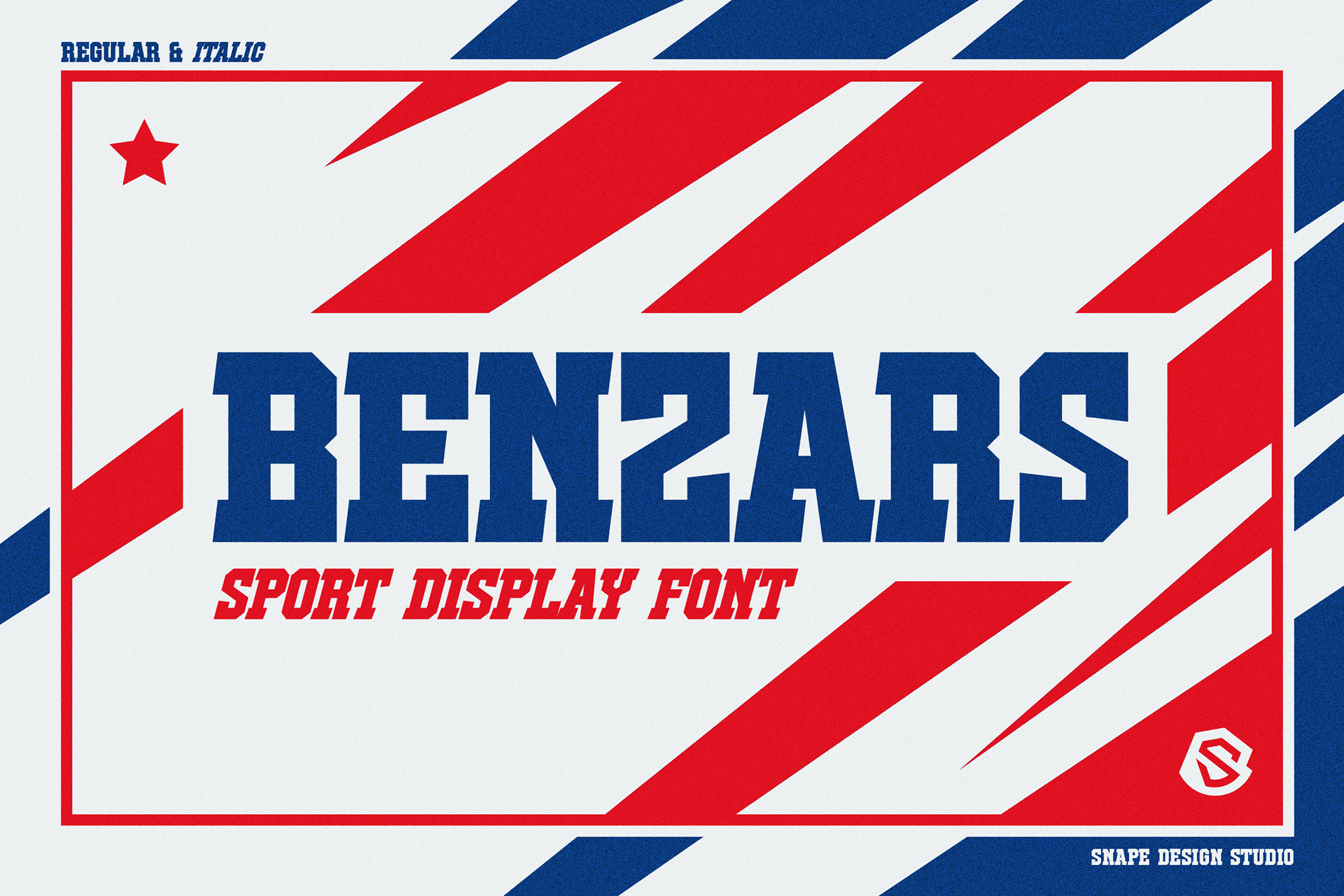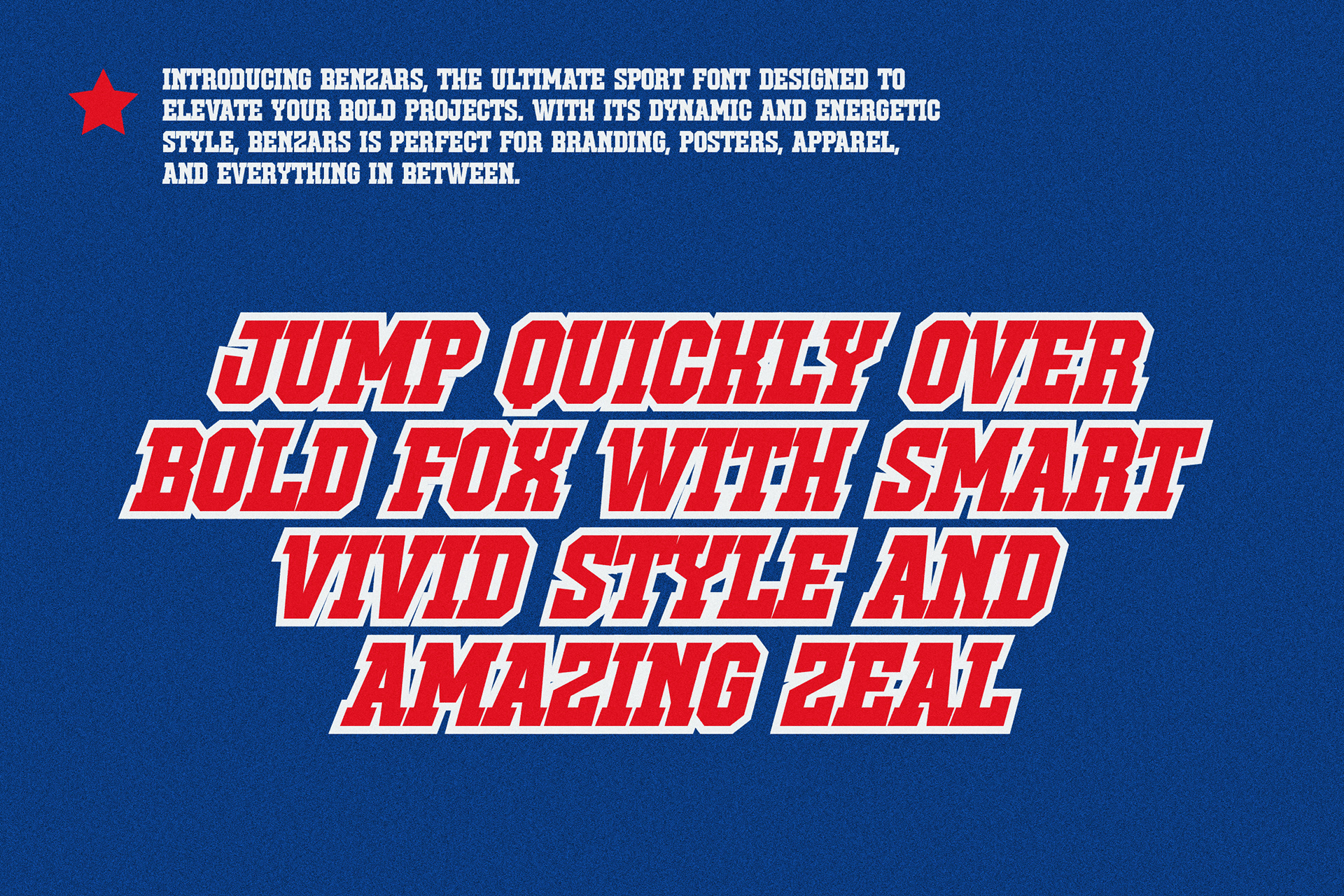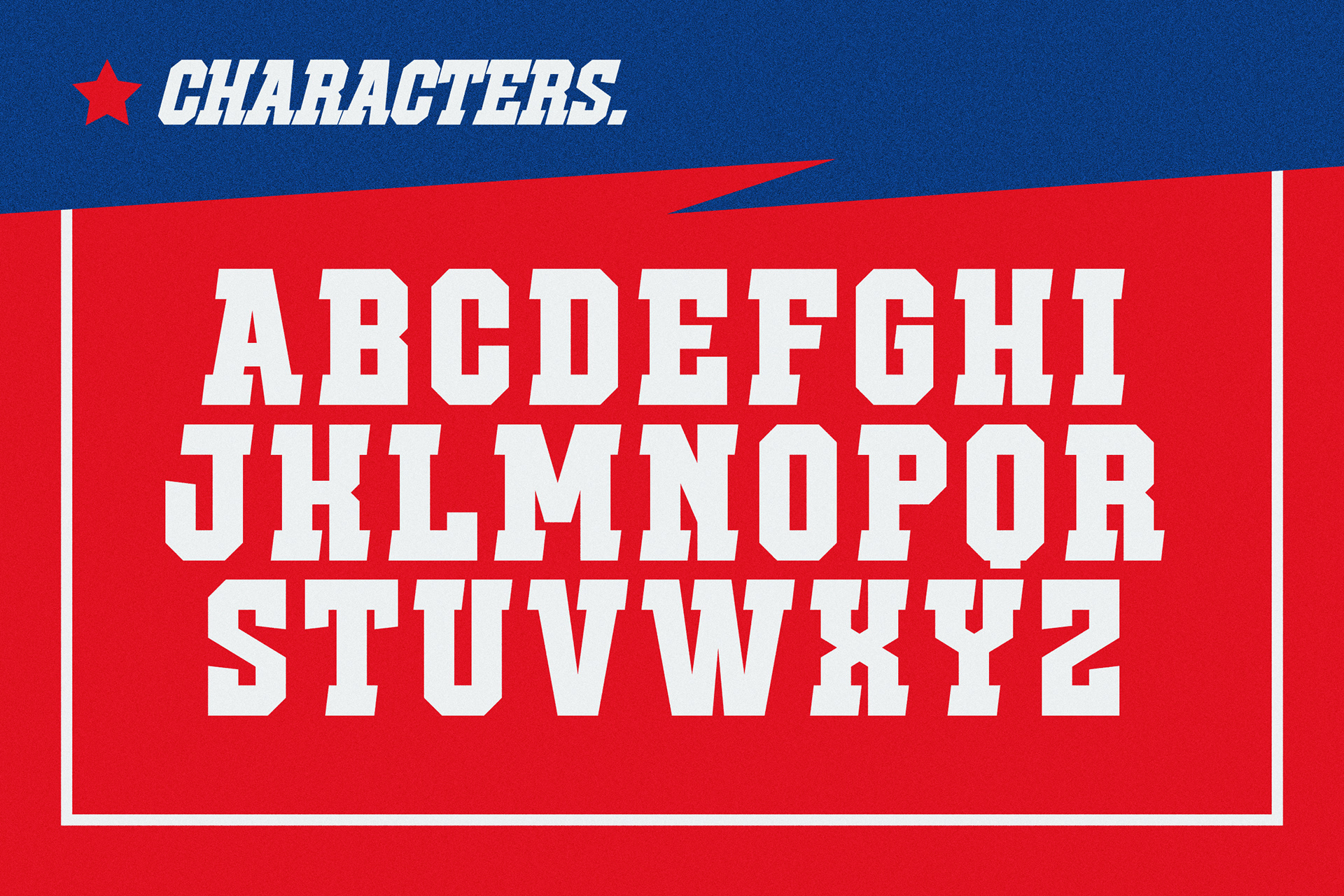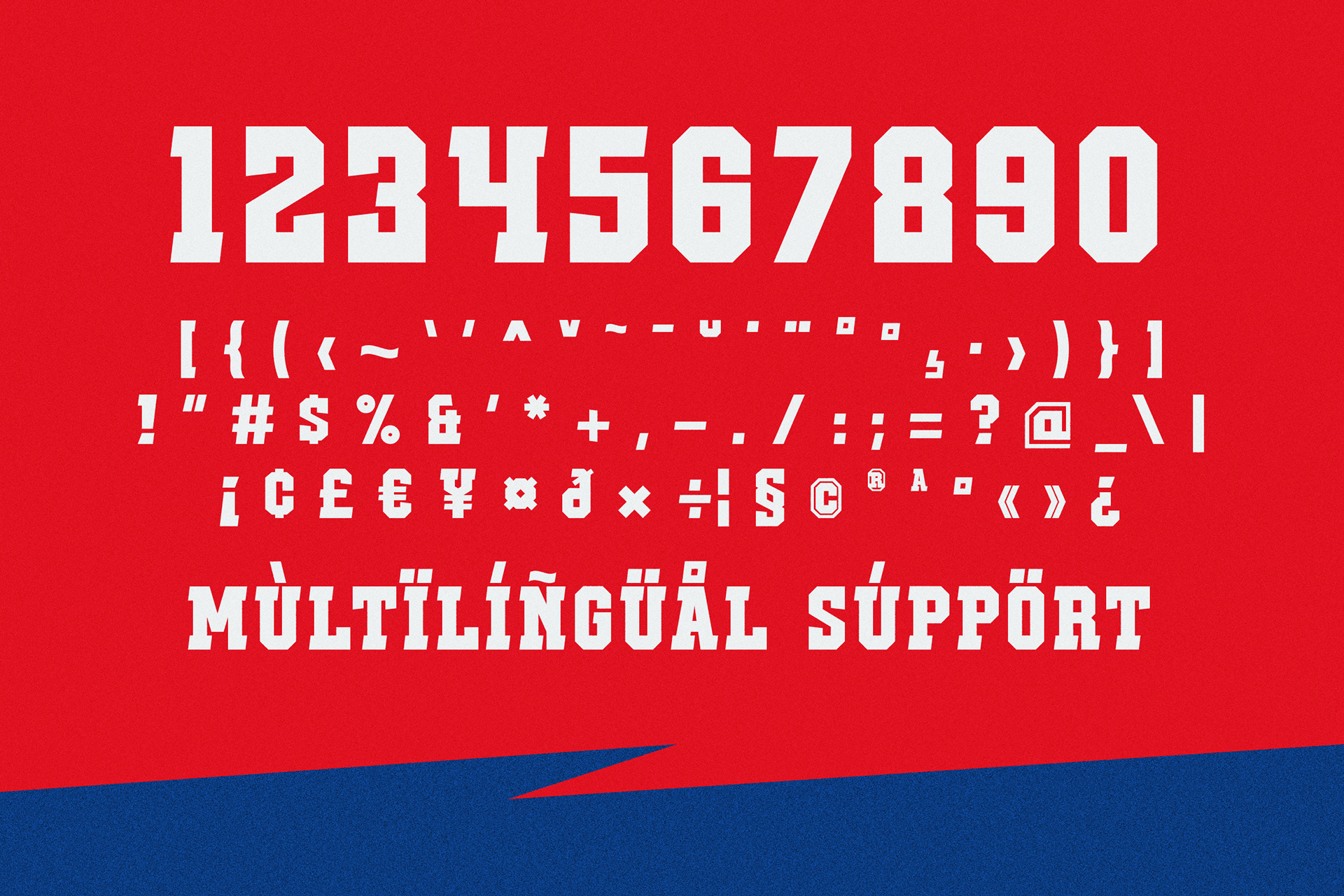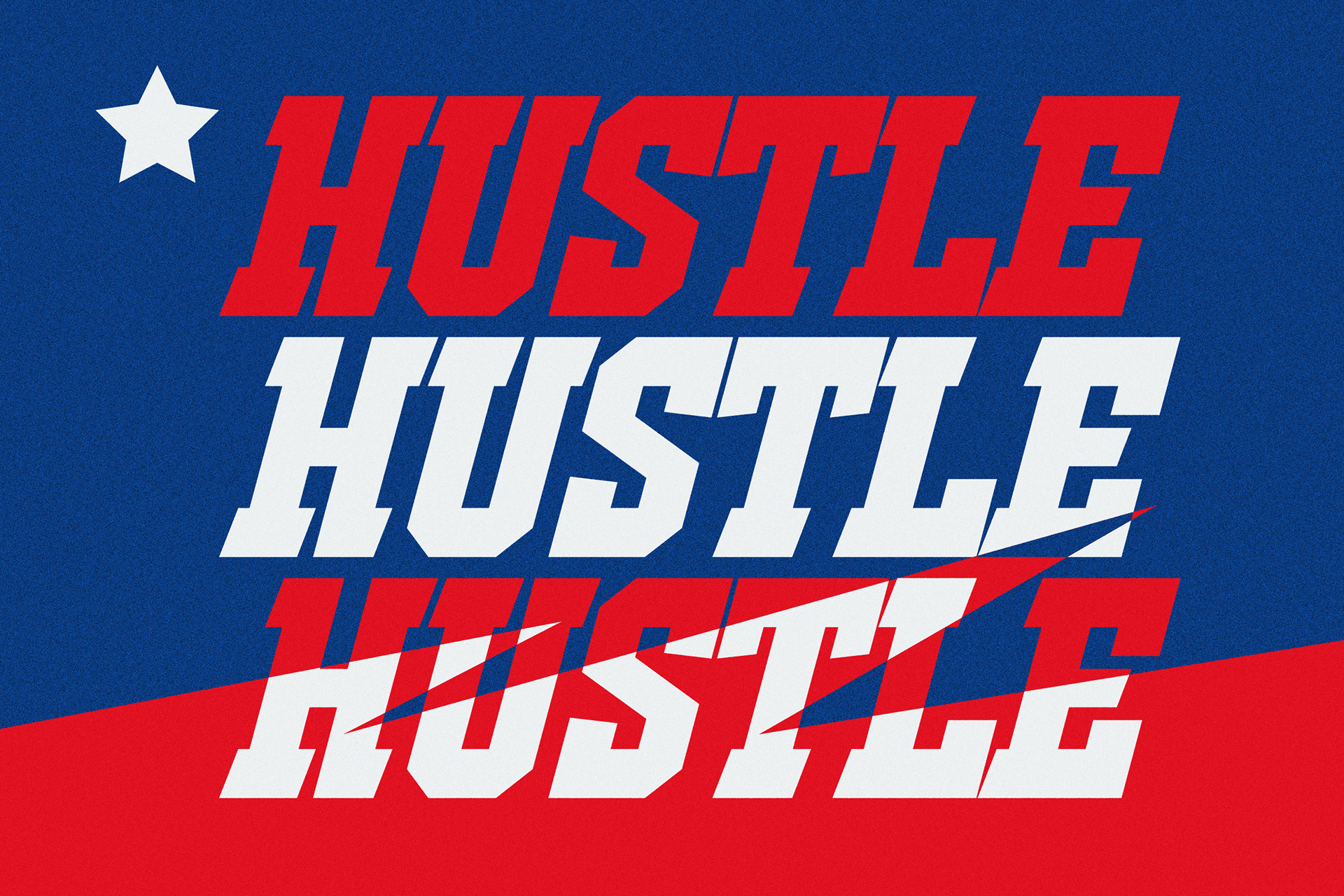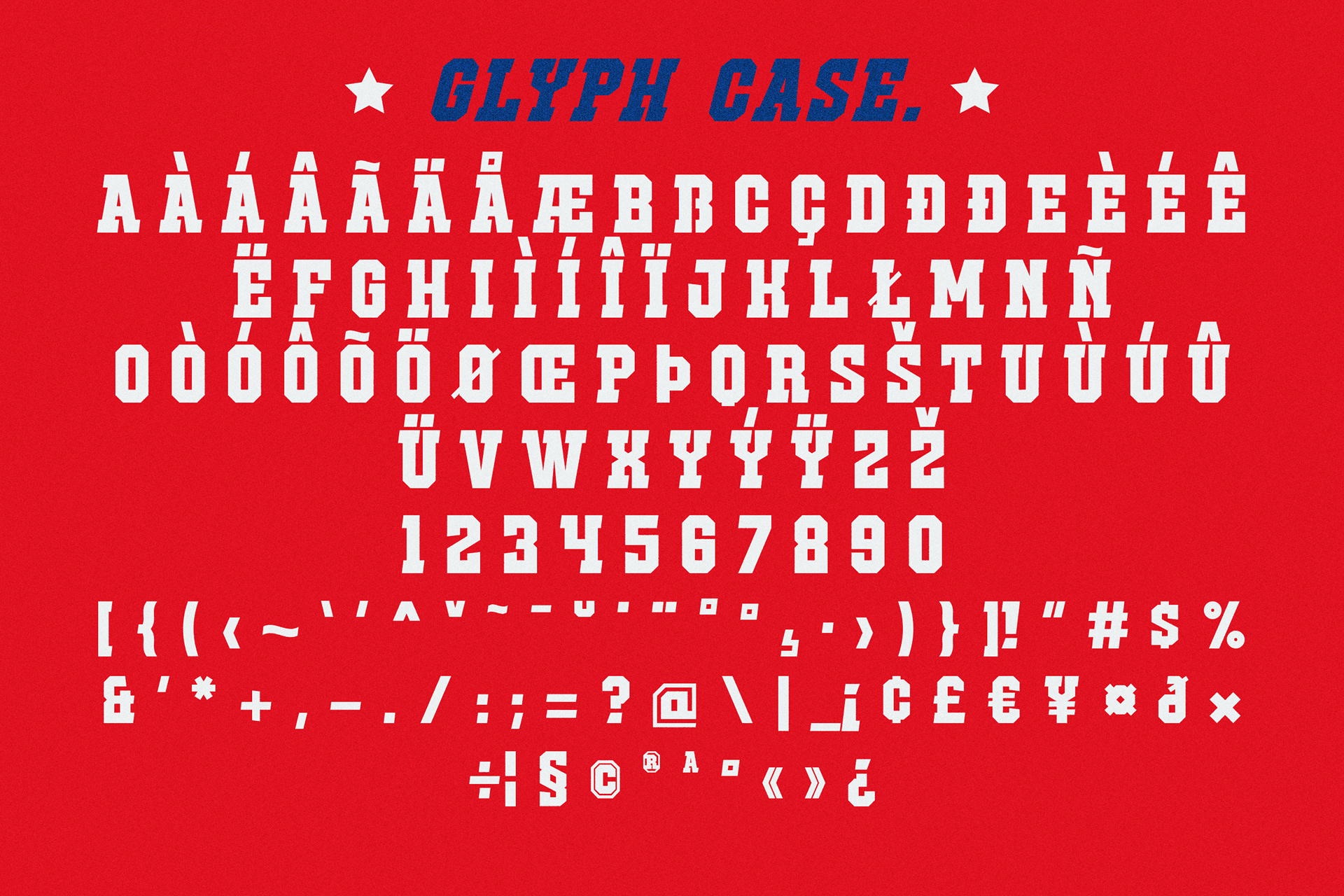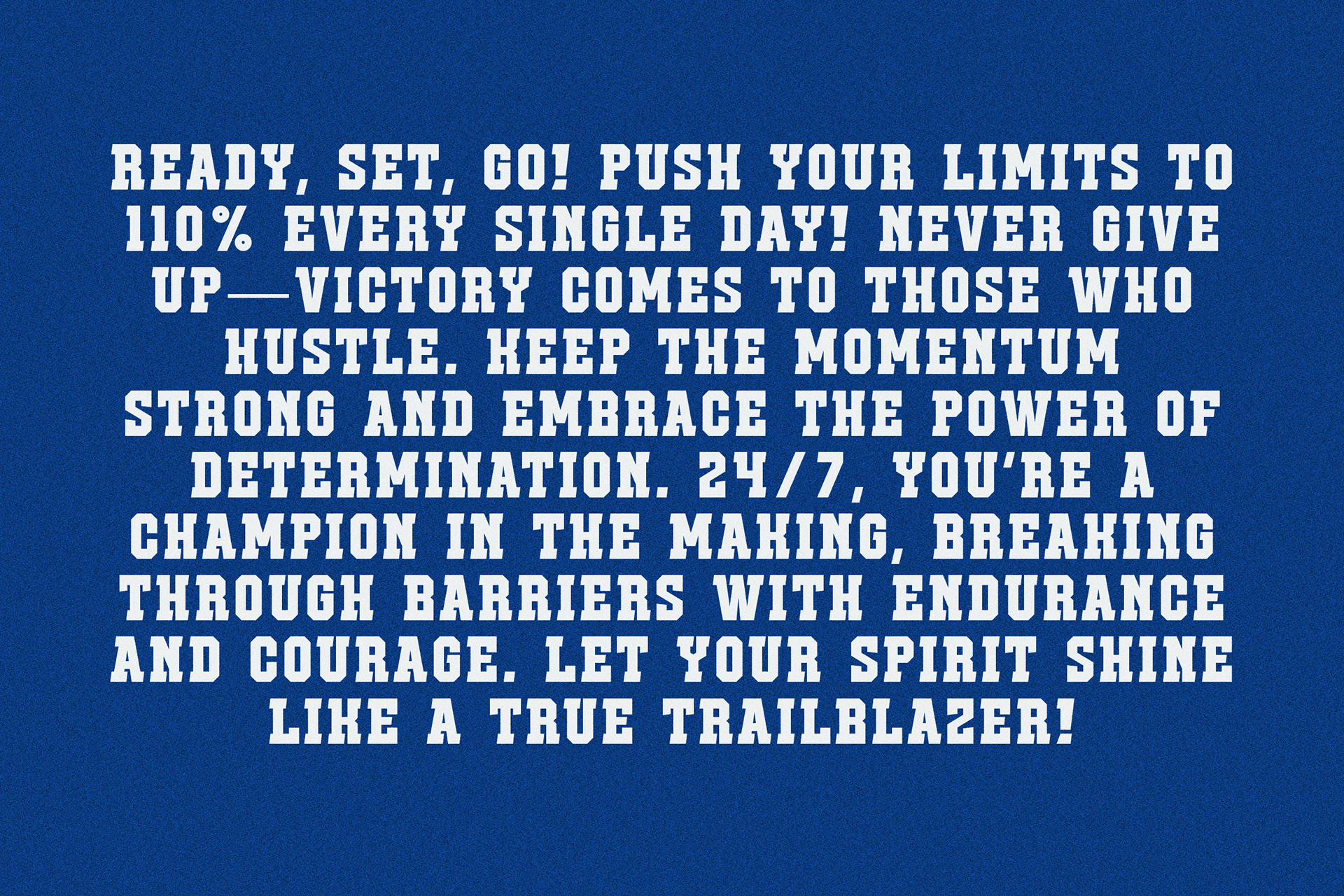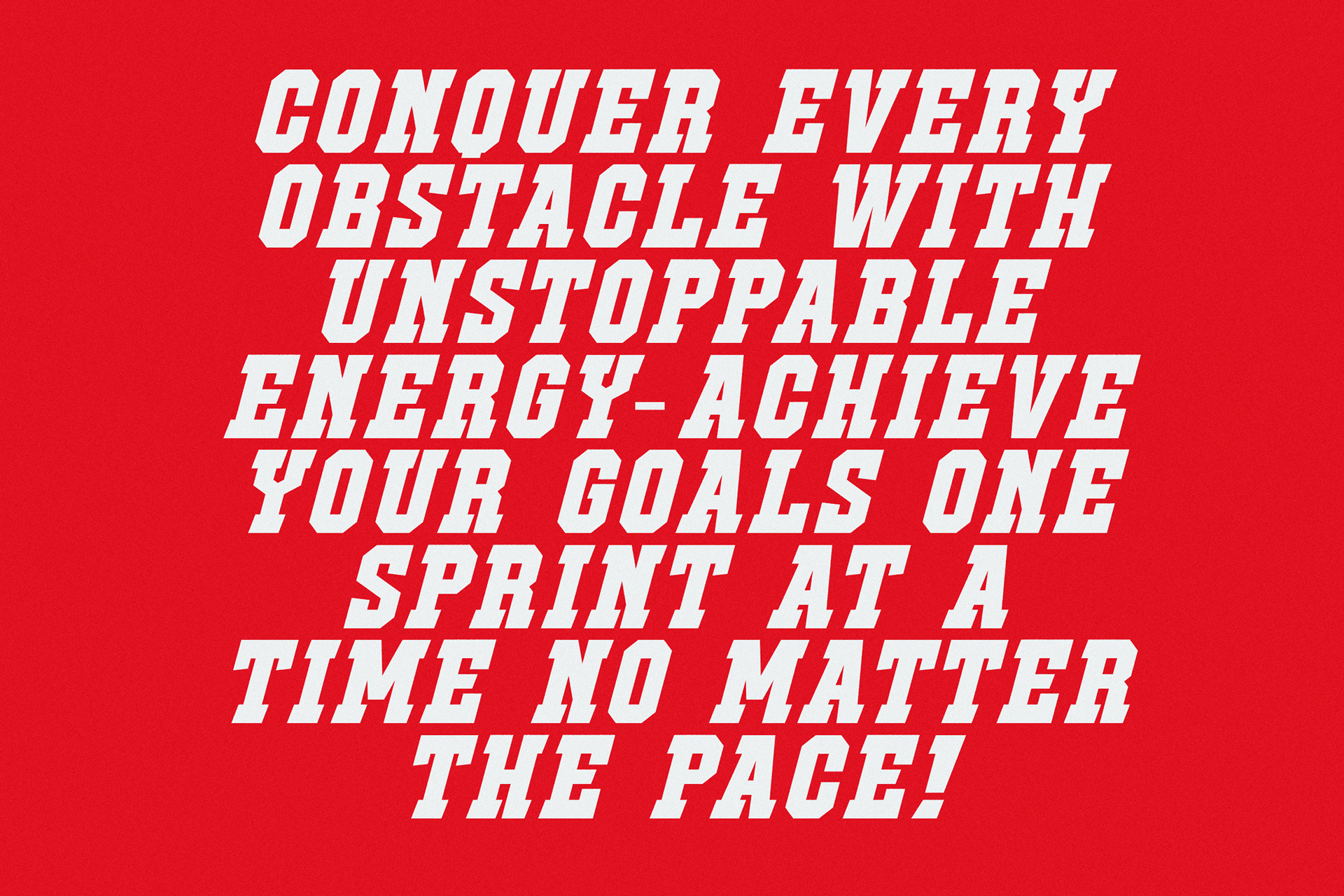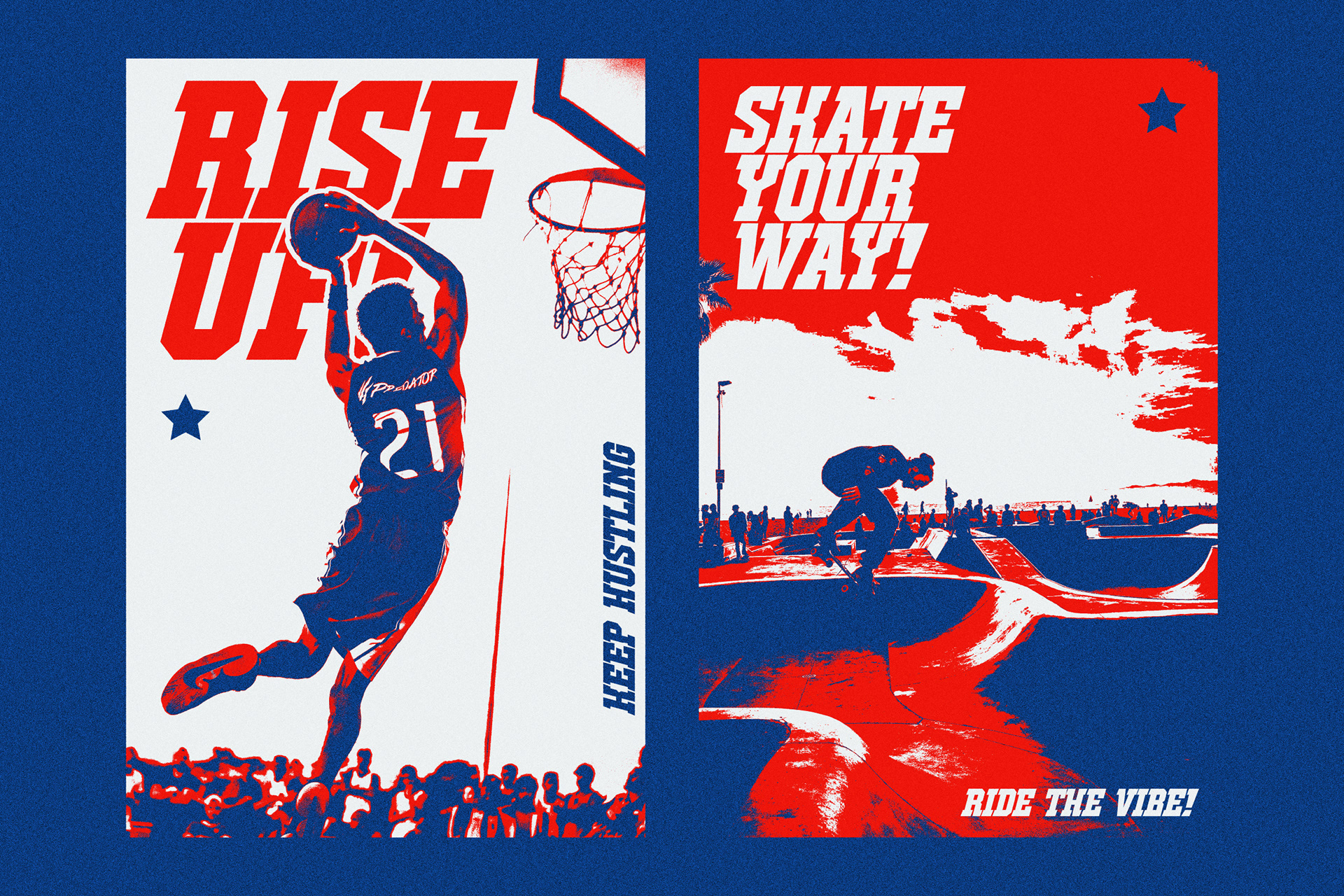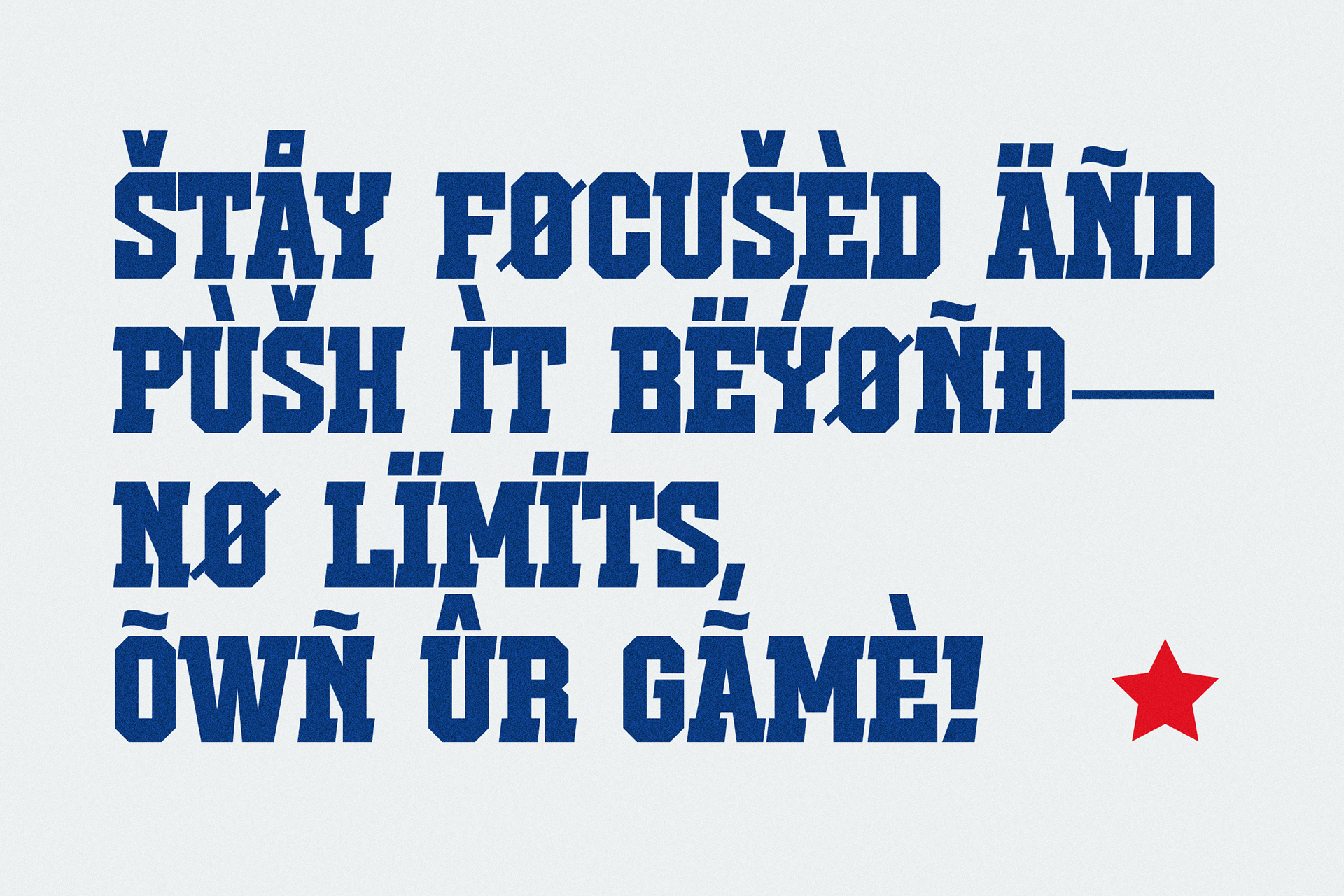
ABOUT THE FONT
Introducing Benzars, the ultimate sport font designed to elevate your bold projects. With its dynamic and energetic style, Benzars is perfect for branding, posters, apparel, and everything in between.
Benzars - Sport Display Font design by Ario Sabrang Damar publish under Snape Design Studio